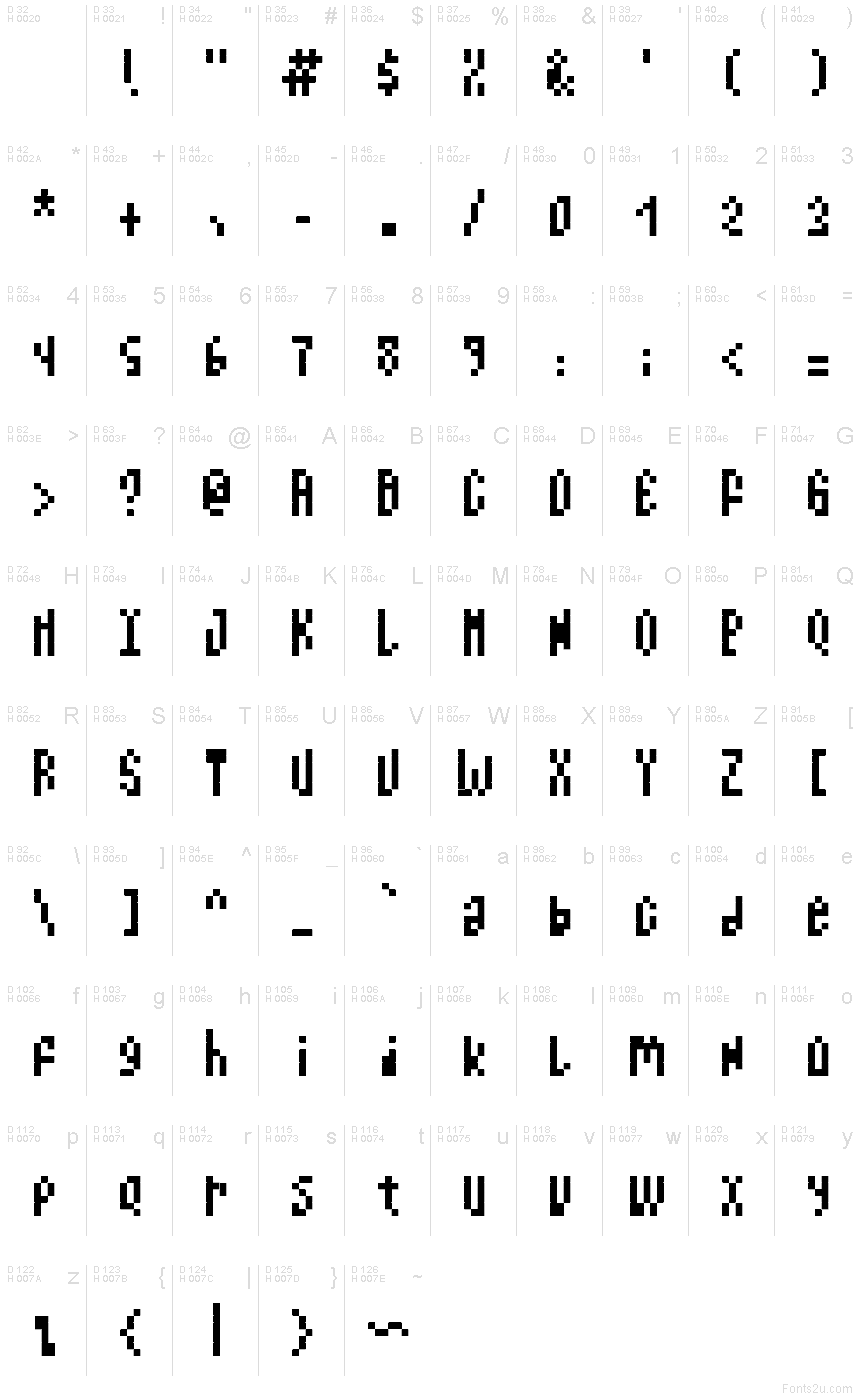
PIXELA typeface Regular
PIXELA font by Nicolos Prado is a free bitmap typeface with a condensed, pixelated style. It combines retro charm with digital aesthetics, offering a minimalistic and charismatic appearance. This font’s distinctive disintegrated look ensures readability and elegance, making it particularly suitable for display purposes.
Ideal for titles, video games, poster designs, tech-themed branding, app interfaces, website headers, editorials, merchandise design, social media graphics, retro gaming content creation and more; PIXELA adds a unique flair to any project.